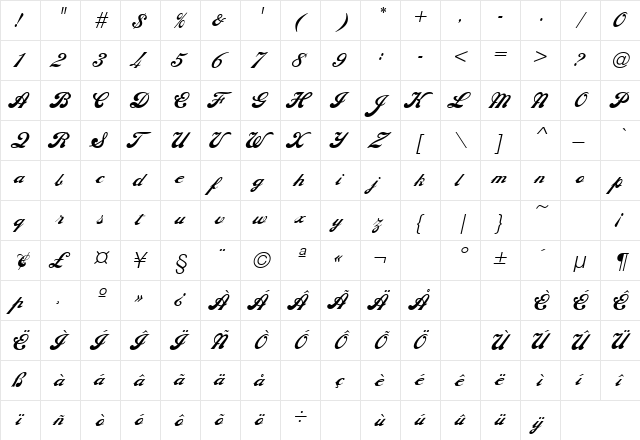
Philly Sport Script Regular Font Preview
Philly Sport Script Regular
Design Context for Philly Sport Script Typeface
Philly Sport Script has the bold swagger of sports branding: strong, assertive letterforms designed to dominate headlines and jerseys alike.
A natural choice for gym brands, fantasy sports, jersey lettering, and action-driven headlines.
Font Pairing: Use alongside a condensed or geometric sans for supporting copy — keep the pairing bold, functional, and free of ornament.
Pro Tip: Use Philly Sport Script in all-caps headlines where its athletic energy can fully express itself. Pair with a solid, simple sans for supporting text.